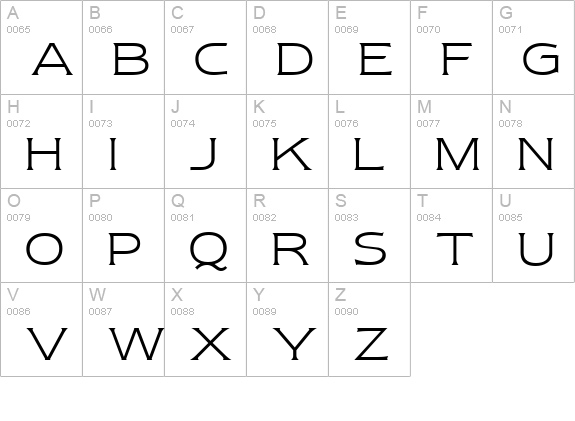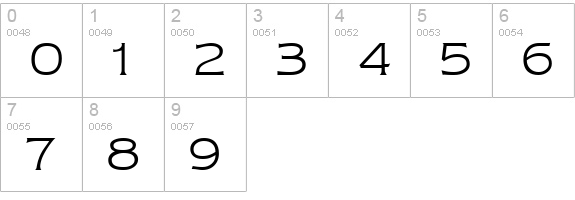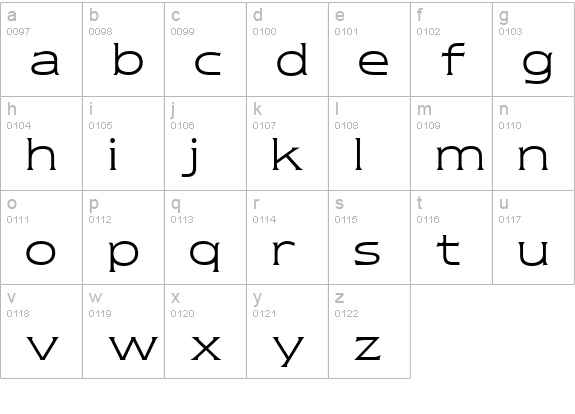
Newtext Regular is the standard, neutral variant in the Newtext typeface family \xE2\x80\x94 well suited to general body text, paragraphs, and standard typographic work.
Newtext Regular font is a versatile typeface that exudes elegance and readability. With its clean lines and modern appeal, this font is perfect for a wide range of design projects, from branding to editorial layouts. The balanced proportions and subtle details make Newtext Regular font a go-to choice for both print and digital design. Best of all, Newtext Regular font is available for free download at FontsMarket.com. This means you can easily access and use this sophisticated typeface in your creative projects without any cost. Whether you're a professional designer or a hobbyist, Newtext Regular font offers a high-quality option that will elevate your work. Don't miss out on this opportunity to enhance your designs with the timeless beauty of Newtext Regular font.